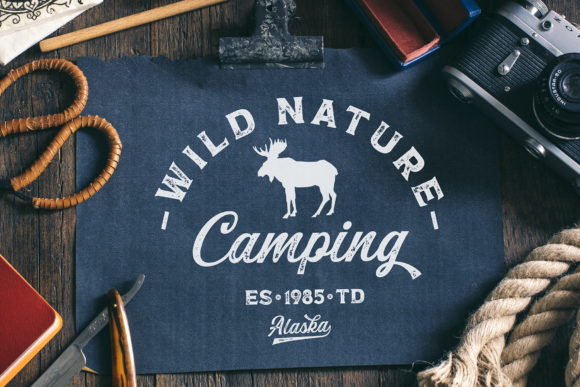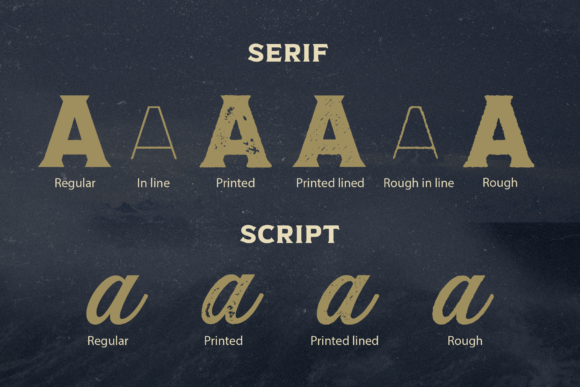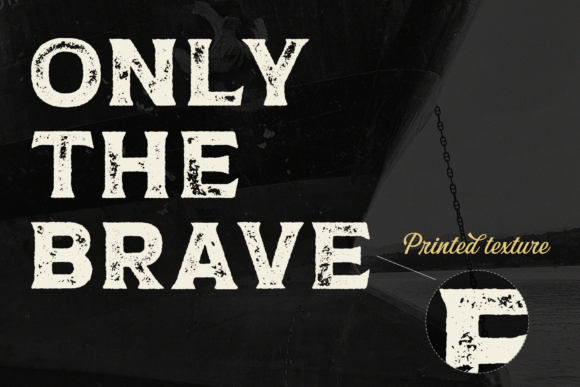
Captain Nelson Font
Captain Nelson brings together two incredible fonts that will perfectly fit together to create stunning design results. While the script font delivers the charisma and charm, the serif version of this font duo will add a layer of confidence to your next design idea.